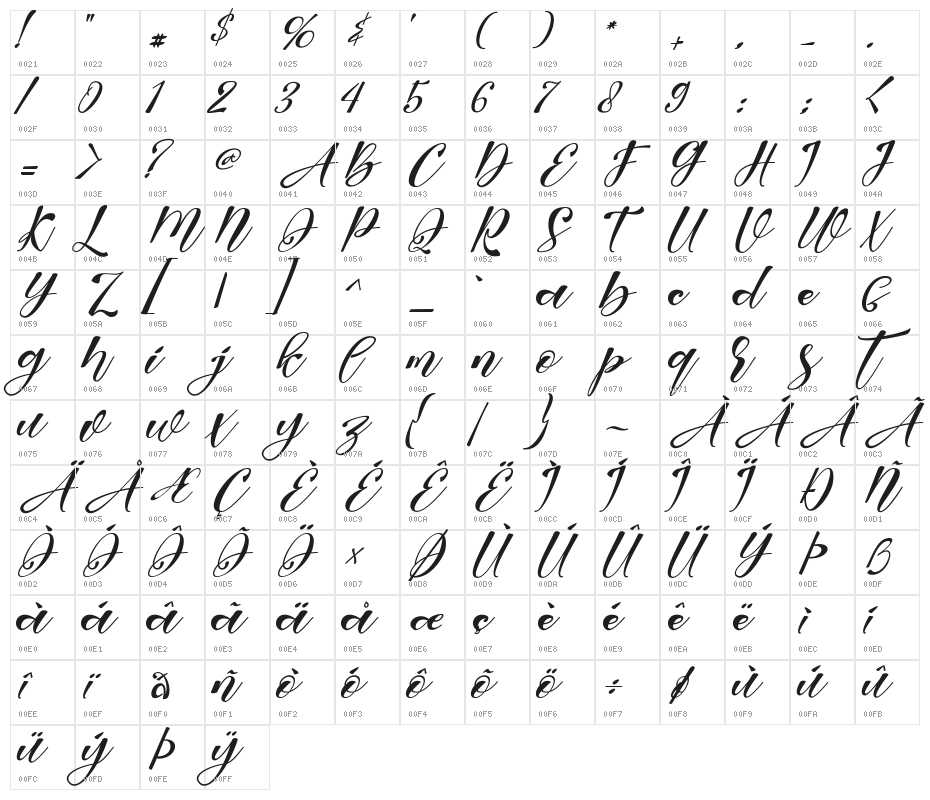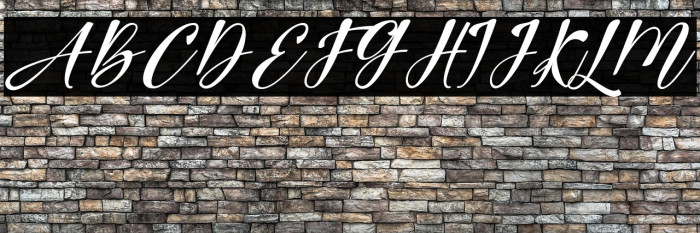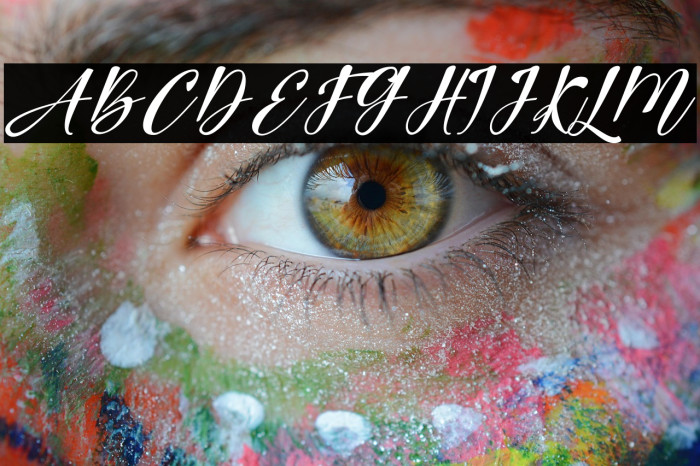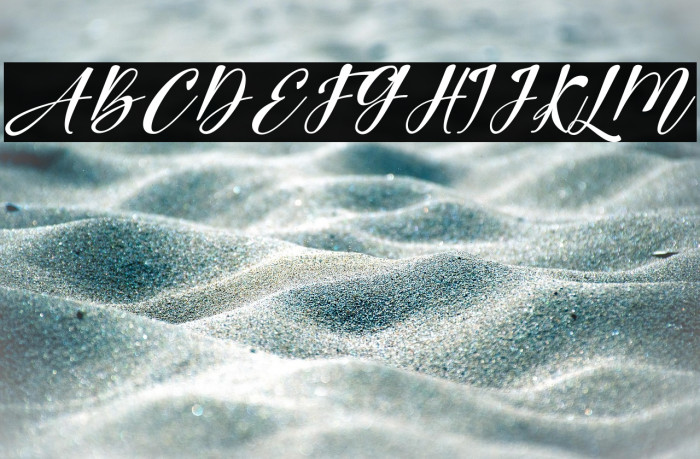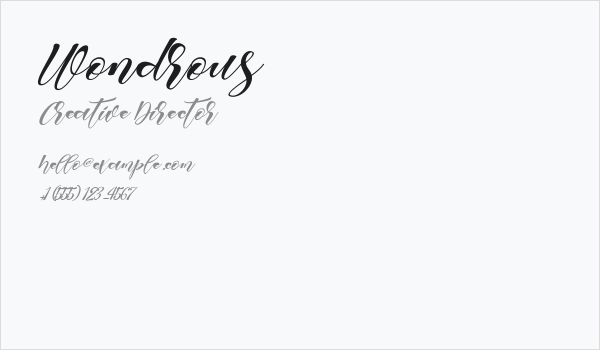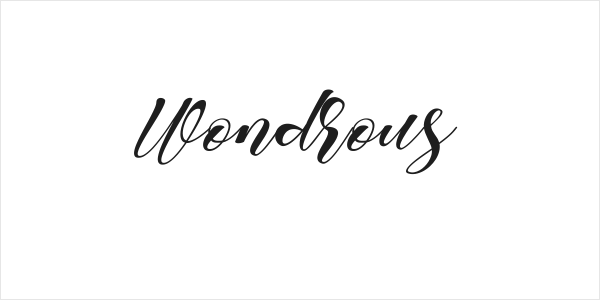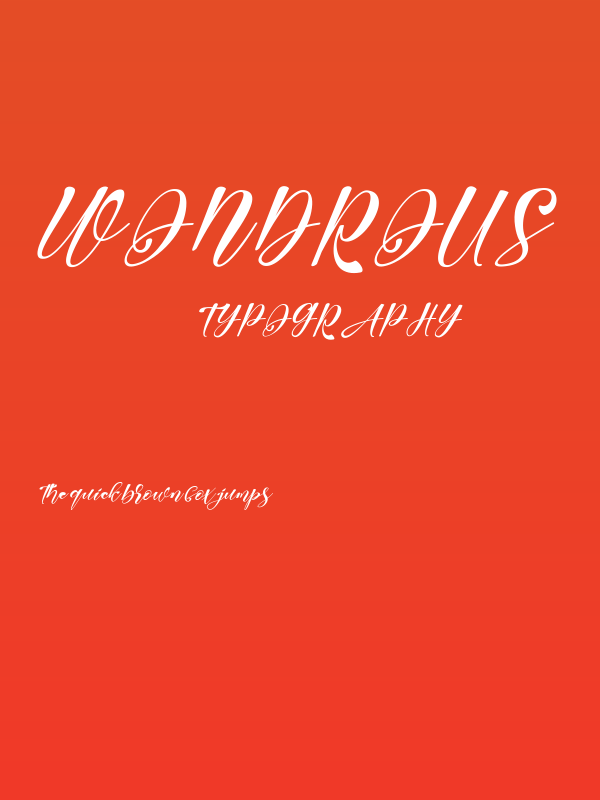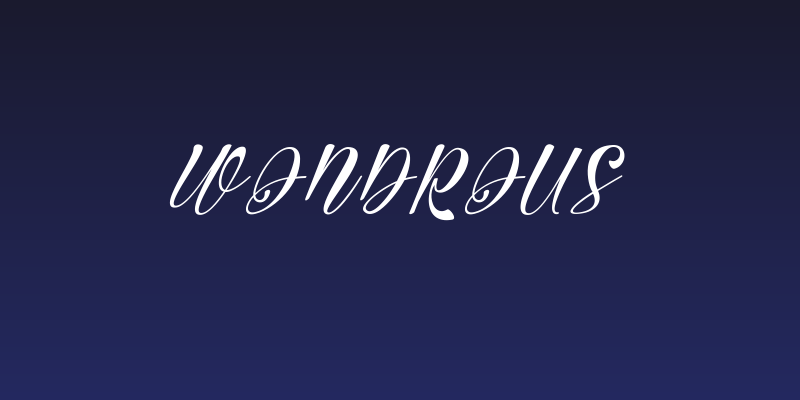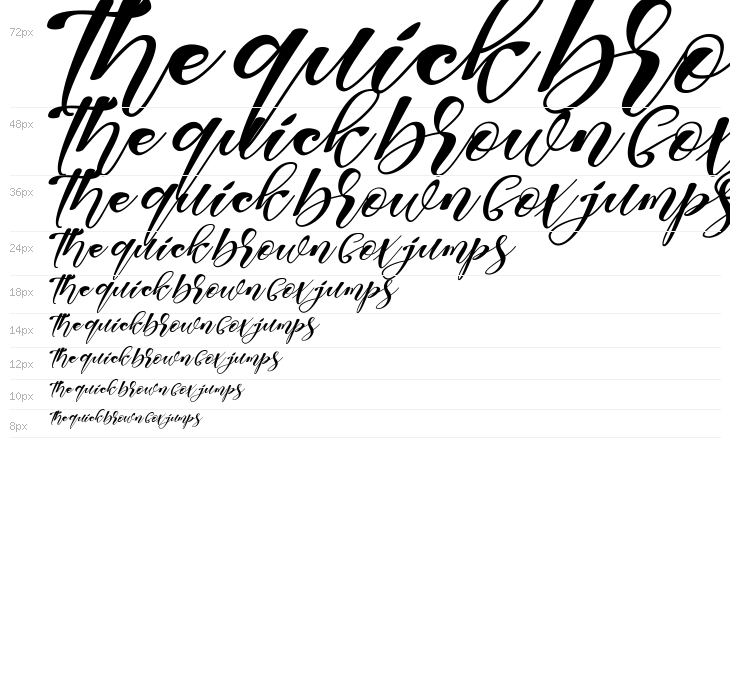
Wondrous Font
Wondrous Description
This elegant script font features a flowing, cursive style with a modern twist. The letters are interconnected, creating a seamless and fluid appearance that is both sophisticated and dynamic. The uppercase letters are bold and prominent, while the lowercase letters maintain a graceful and delicate form. The numerals are stylishly integrated, matching the overall aesthetic with their curved lines and balanced proportions. Special characters are thoughtfully designed to complement the script, adding versatility to the font. The font's high contrast in stroke thickness enhances its readability and visual appeal, making it suitable for various design applications.
| Proposed Projects | Ideal for wedding invitations, branding, logos, and elegant packaging designs. |